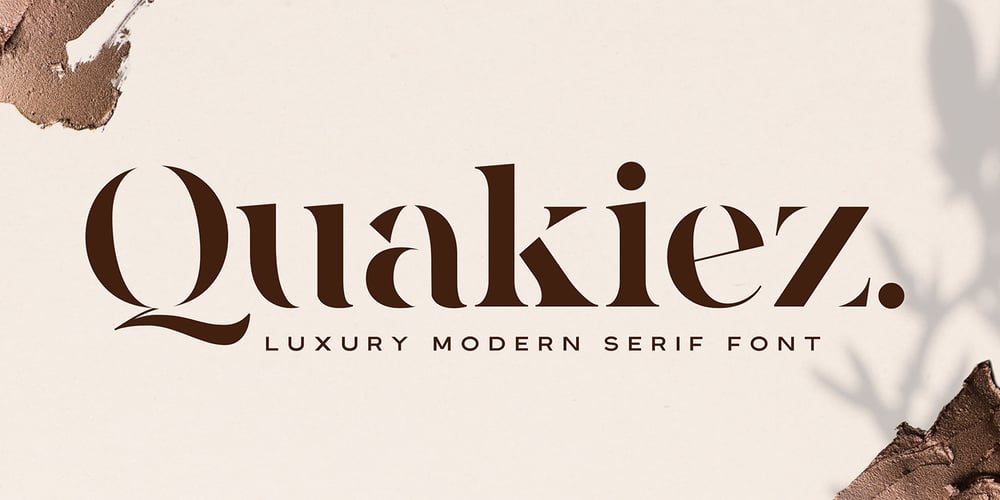
Quakiez
Quakiez font
Quakiez Font Family was designed by Abdul Malik Wisnu and published by Almarkha Type. Quakiez contains 2 styles and family package options. Quakiez is a luxury modern serif font with a stylish touch inspired by the famous minimalist logo. Quakiez includes 2 styles (regular and display) and is perfect for the purposes of designing templates, brochures, videos, advertising branding, logos and more.